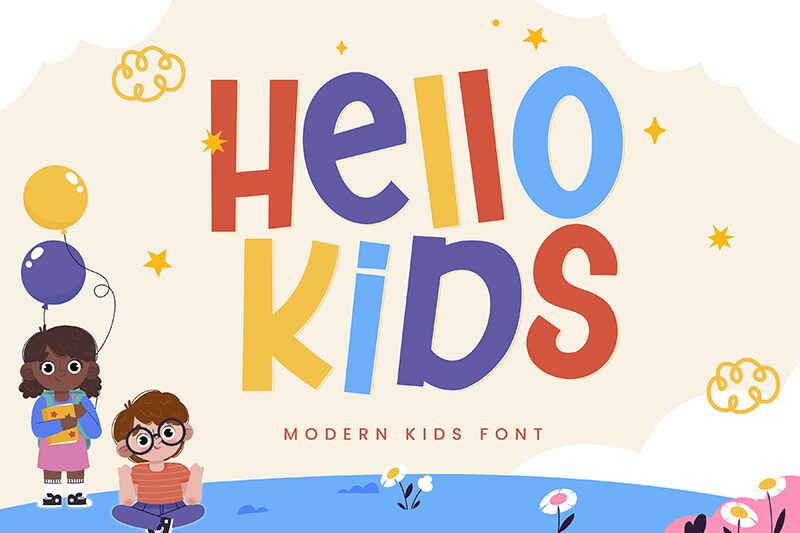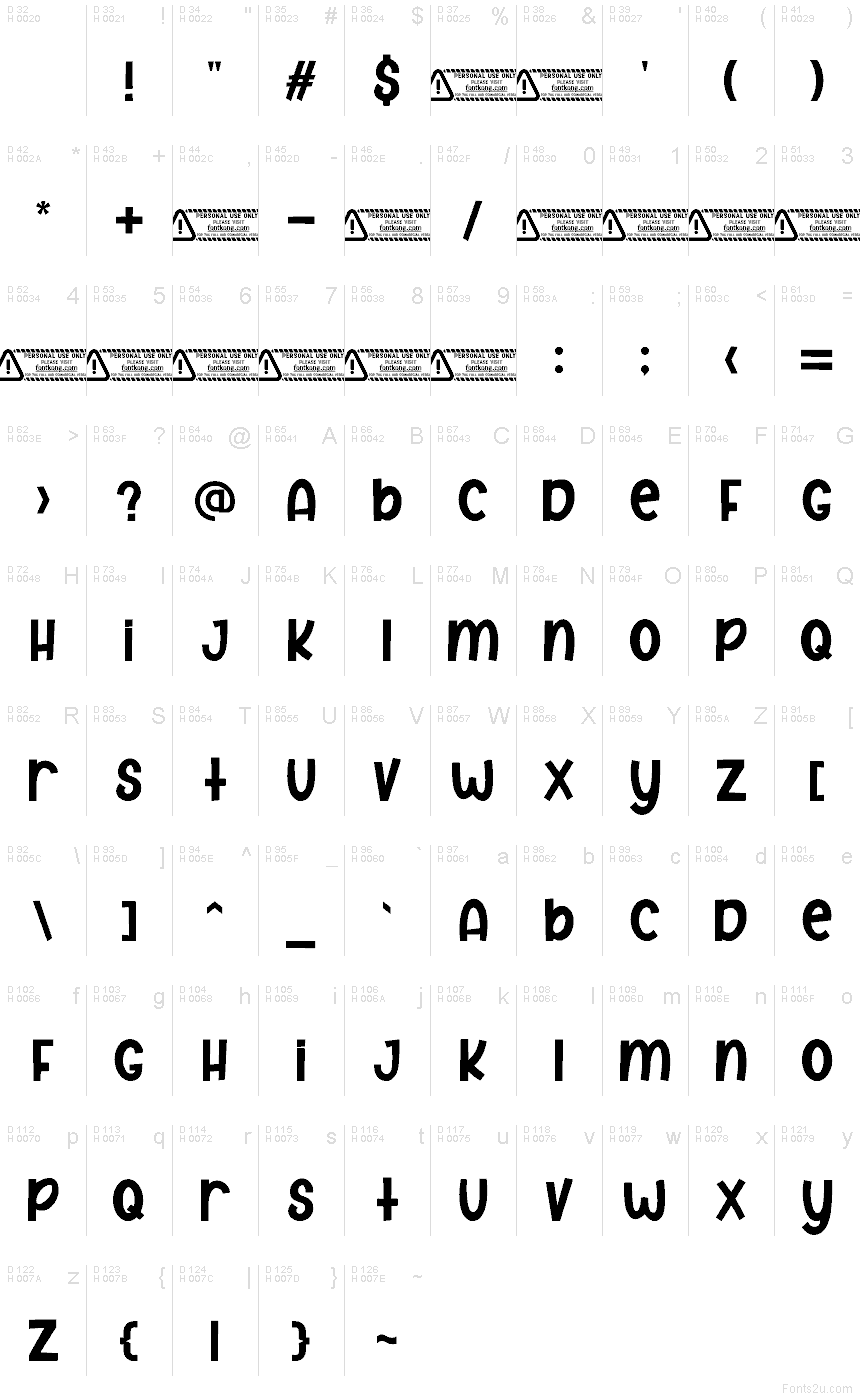
Hellokids font by Kong Font is a free comic display typeface that feels like it’s been cut from bold, inky construction paper. The chunky, slightly uneven letters bounce along the line with a playful wobble, giving text a hand-drawn energy without becoming messy. Its thick strokes and tight shapes stay legible even at smaller sizes, while the tall, narrow forms help long words fit comfortably in tight spaces.
Using Hellokids, this free font shines on children’s book covers, classroom posters, toy packaging, birthday invitations, YouTube kids’ thumbnails, and playful logo marks. It brings a friendly, noisy energy that grabs attention in seconds and keeps things lighthearted rather than chaotic. Pair Hellokids with a clean, rounded sans serif for body text and let this comic display typeface handle the loud, fun headlines.